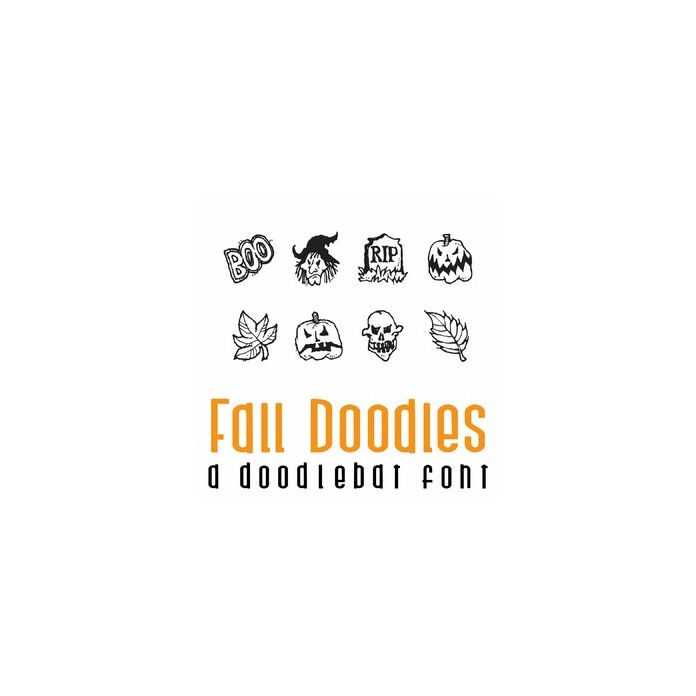
Fall Doodles Doodlebat Font
This fun doodlebat font features 26 doodle style fall imagery. Perfect for cards, gifts, decor, crafts, scrap book pages, planner stickers and more!